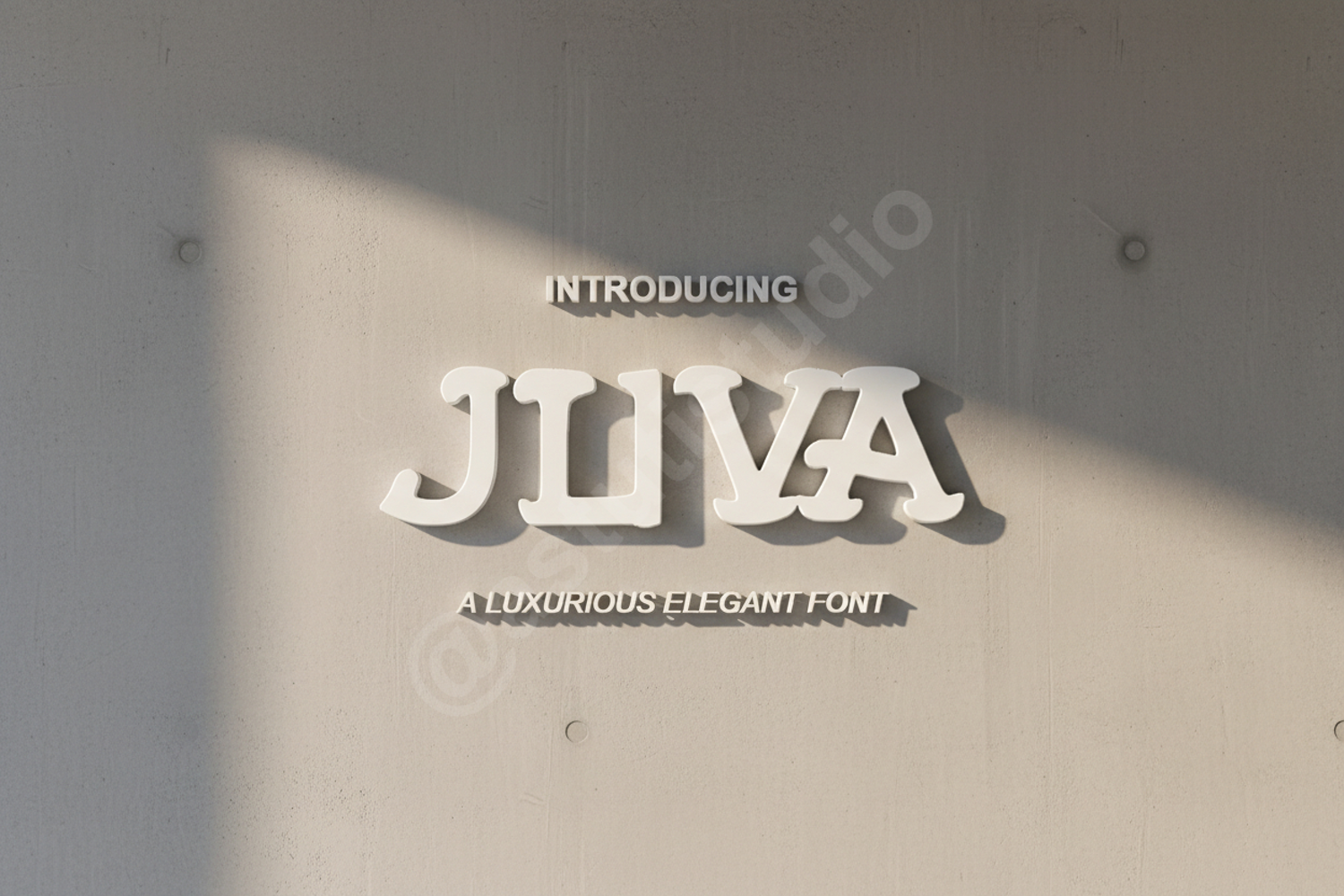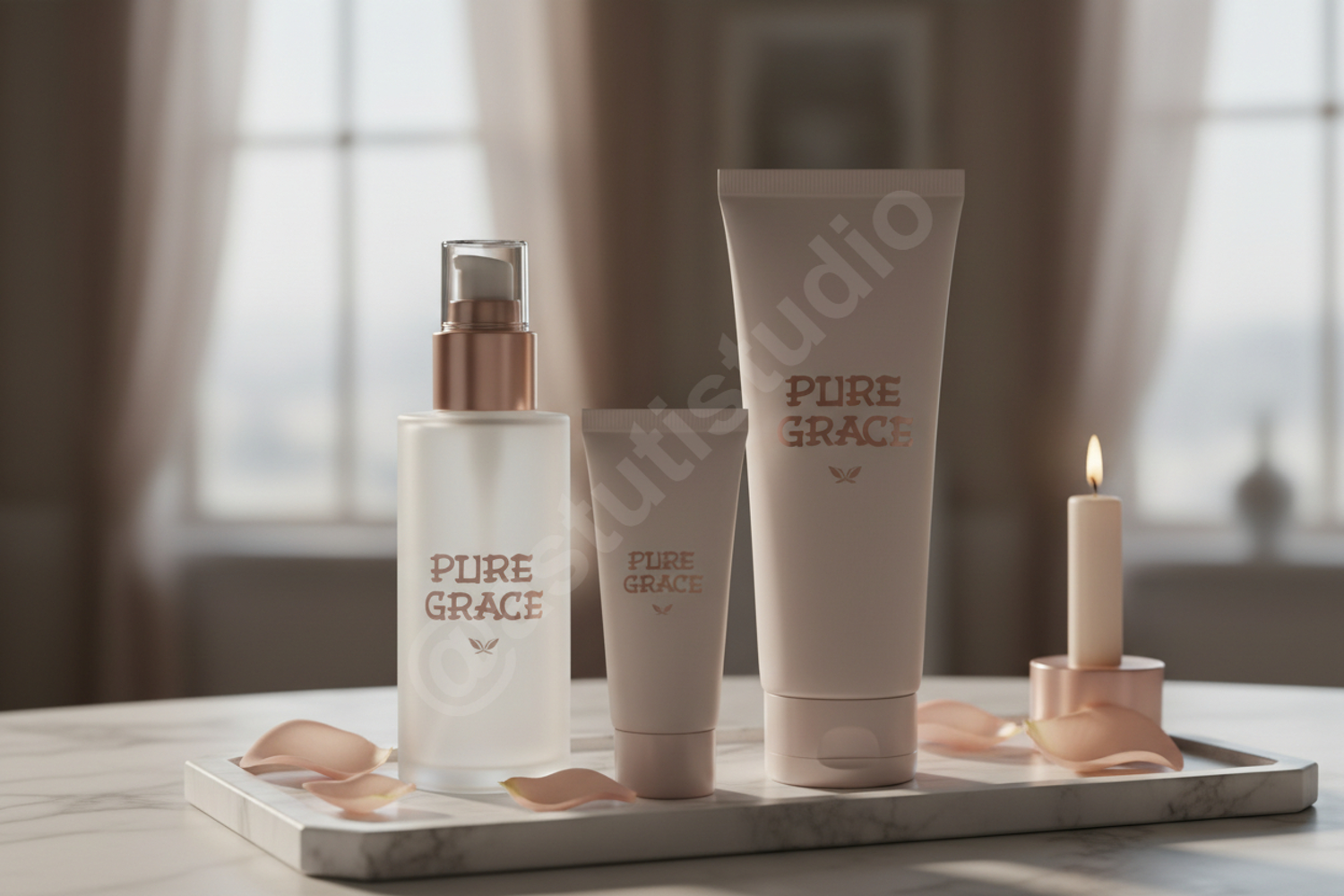
Juva - Elegant Modern Serif Typeface
Juva
Juva is a premium serif typeface designed for those who seek a perfect blend of timeless elegance and modern sophistication. Crafted with meticulous attention to detail, Juva offers clean lines and balanced proportions that command attention while maintaining a high level of readability. This versatile font is an essential addition to any designer's toolkit, providing a touch of luxury to both digital and print media.
- Complete uppercase and lowercase character set
- Numbers, punctuation, and symbols
- Comprehensive multilingual support
- Branding and Identity: Create high-end logos and cohesive brand systems for boutique businesses.
- Wedding Stationery: Design breathtaking invitations, place cards, and wedding programs with a sophisticated flair.
- Editorial Design: Enhance magazine layouts, book covers, and digital articles with professional typography.
- Social Media Marketing: Elevate your visual content on Instagram, Pinterest, and LinkedIn.
- Product Packaging: Perfect for luxury goods, cosmetics, and artisanal product labels.